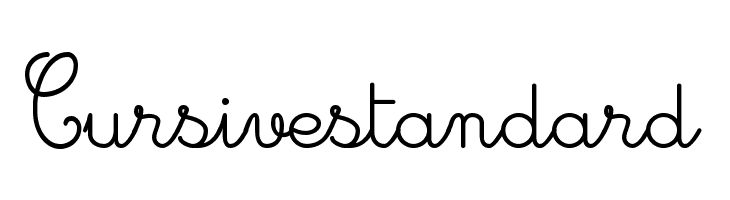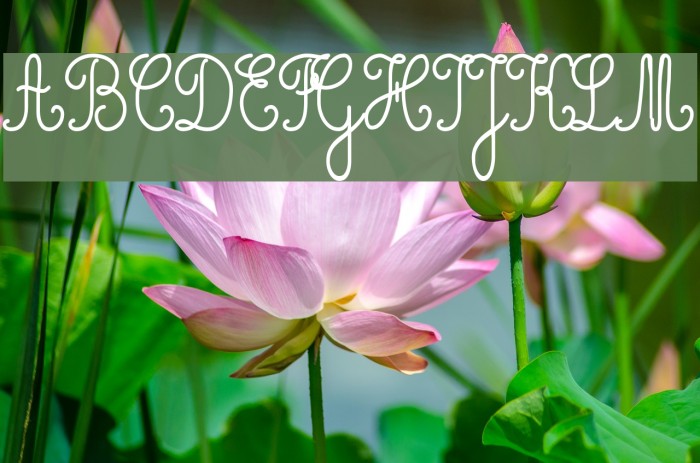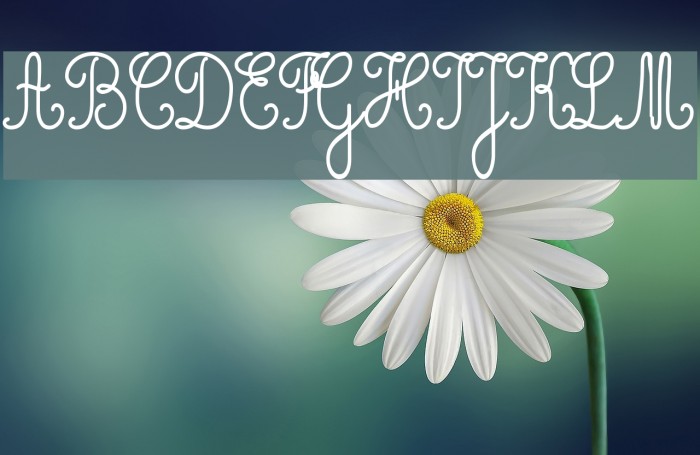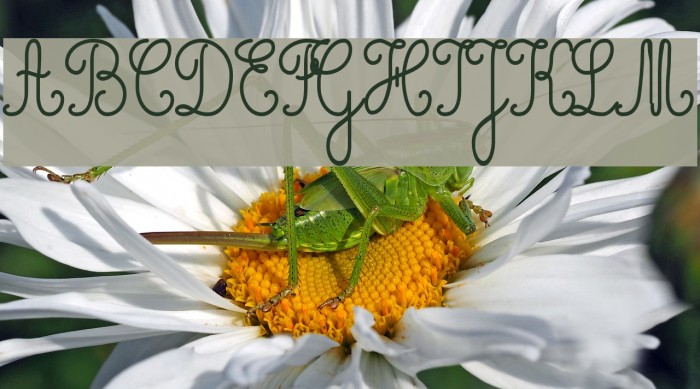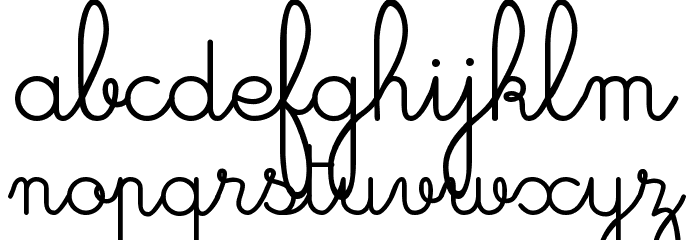
Cursivestandard Font
Cursivestandard Description
This font features a playful and elegant cursive style with smooth, flowing lines and loops. The uppercase letters are characterized by their tall, slender forms with intricate loops and swirls, giving them a whimsical yet sophisticated appearance. The lowercase letters maintain a consistent flow, connecting seamlessly to create a harmonious script. Numbers and special characters are designed to match the overall aesthetic, with similar curves and loops. This font exudes a sense of creativity and elegance, making it suitable for a variety of design projects.
A playful and elegant cursive font with smooth, flowing lines and intricate loops from Handwritten fonts.
- Proposed Projects: Ideal for wedding invitations, greeting cards, logos, and branding materials that require a touch of elegance and creativity.
- Use Case: Logos, Invitations, Greeting Cards